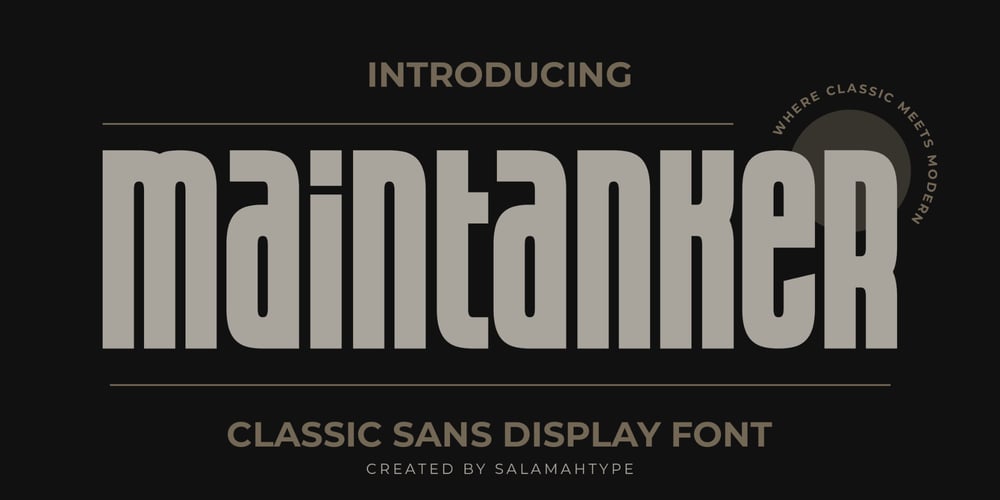
Maintanker Font Family was designed by Aswangga Sadike and published by Salamahtype. Maintanker contains 1 styles and family package options. Maintanker is a bold, condensed font perfect for logos or headlines on product packaging. Its unique style stands out, especially when combined with uppercase and lowercase letters. Additionally, it supports multiple languages, making it versatile for various branding needs. Ideal for creating eye-catching and memorable designs.Font Features: Uppercase Stylish Lowercase Symbol and Punctuation Multilingual Support (70 Languages)